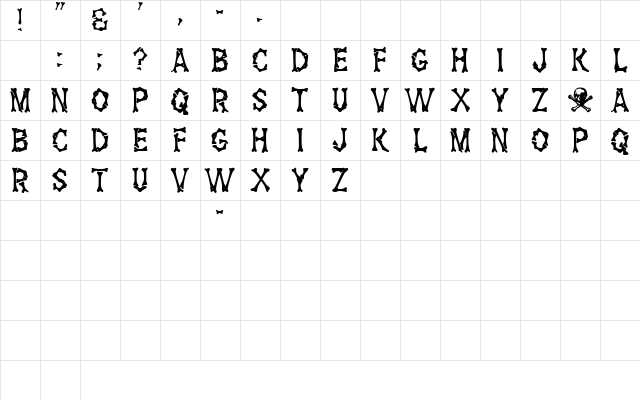
Complete BonzDisplayCapsSSK Bold glyph index. Displaying only characters natively supported by BonzDisplayCapsSSK Bold font.
BonzDisplayCapsSSK is built around its visual character rather than neutral utility - its distinctive forms are designed to make an impression at display sizes. Its bold stroke weight gives it real presence on the page.
Font Pairing: Pair with a clean neutral sans-serif for body copy to let BonzDisplayCapsSSK's character lead without overwhelming the composition.
Pro Tip: Use BonzDisplayCapsSSK exclusively at display sizes - it was designed to be seen, not read at length. Let a neutral companion handle body copy.